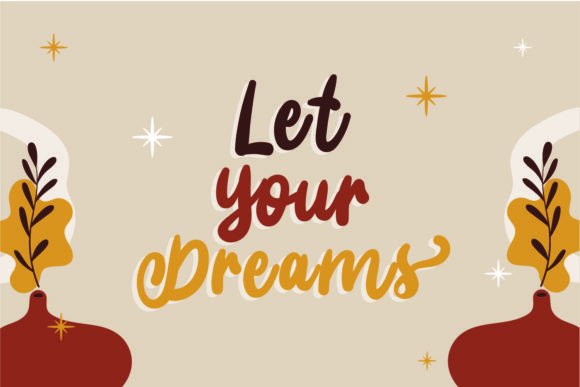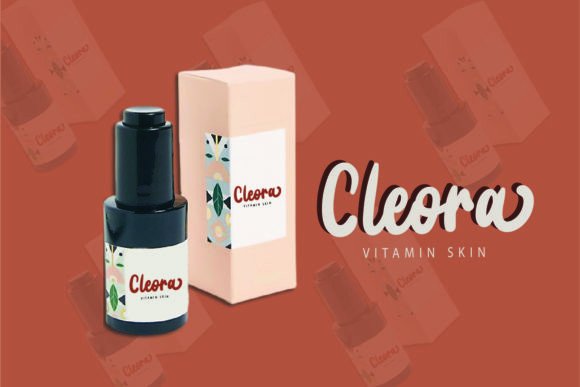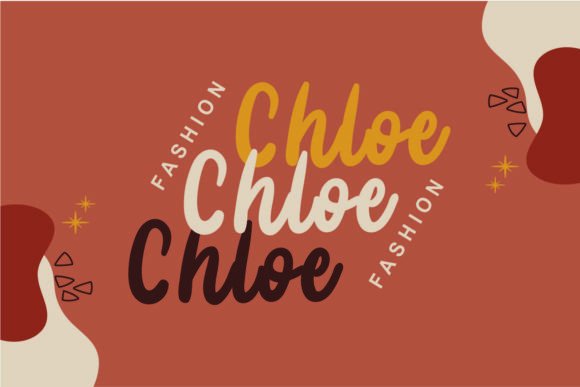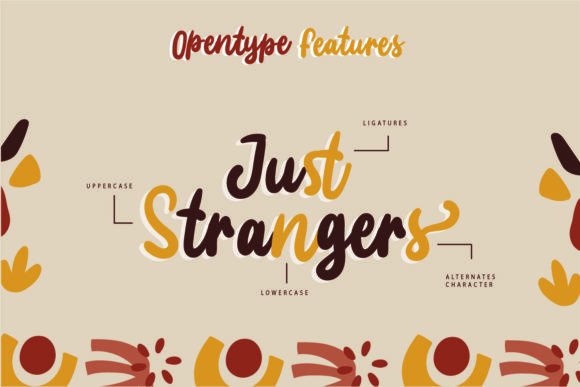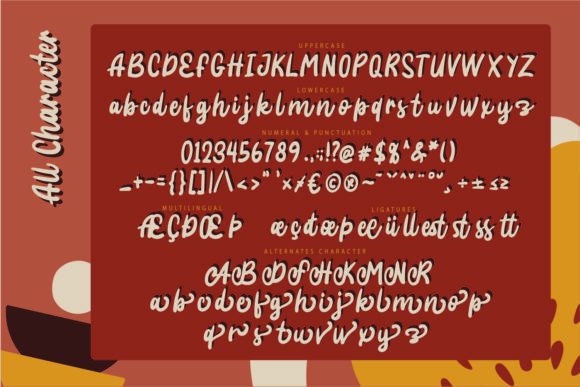
Avestonia Font: Elevate Your Designs with Elegant Calligraphy
In the world of typography, a font can make or break a design. For designers and crafters looking to add a touch of sophistication and elegance to their projects, Avestonia Font is an excellent choice. This modern script font boasts a beautiful calligraphy style, perfect for creating stunning invitations, greeting cards, branding materials, business cards, quotes, posters, and more.
What Makes Avestonia Font Special?
Avestonia Font stands out from the crowd with its unique blend of modernity and classic calligraphy. Its elegant strokes and flowing lines make it an ideal choice for designs that require a personal touch. Whether you’re working on a wedding invitation, a business card, or a promotional poster, Avestonia Font is sure to impress.
Key Features of Avestonia Font
- Modern Script Font: Avestonia Font features a modern script style with a calligraphy twist, making it perfect for designs that require a touch of elegance.
- PUA Encoded: This font is PUA (Private Use Area) encoded, which means you can easily access all the glyphs and swashes. This feature makes it simple to customize your designs and add a personal touch.
- Versatile: Avestonia Font is suitable for a wide range of design projects, including invitations, greeting cards, branding materials, business cards, quotes, posters, and more.
Use Cases for Avestonia Font
Avestonia Font is a versatile font that can be used in various design projects. Here are some use cases to get you started:
- Wedding Invitations: Create beautiful and elegant wedding invitations that set the tone for the big day.
- Greeting Cards: Design stunning greeting cards for special occasions, such as birthdays, anniversaries, and holidays.
- Branding Materials: Use Avestonia Font to create professional branding materials, such as logos, brochures, and letterheads.
- Business Cards: Make a lasting impression with elegant business cards that feature Avestonia Font.
- Posters: Create eye-catching posters that showcase your message in a stylish and sophisticated way.
Tips for Using Avestonia Font
To get the most out of Avestonia Font, here are some tips to keep in mind:
- Experiment with Swashes: Avestonia Font comes with a range of swashes that can add a touch of elegance to your designs. Experiment with different swashes to find the one that works best for your project.
- Pair with Other Fonts: Avestonia Font pairs well with other fonts, such as sans-serif fonts. Experiment with different font combinations to create a unique look.
- Use in High-Quality Designs: Avestonia Font is designed for high-quality designs. Use it in projects that require a high level of detail and sophistication.
Avestonia Font is a beautiful modern script font with a calligraphy style that’s perfect for designers and crafters looking to add a touch of elegance to their projects. With its PUA encoding, versatile design, and range of use cases, Avestonia Font is an excellent choice for anyone looking to elevate their designs. Whether you’re working on a wedding invitation, a business card, or a promotional poster, Avestonia Font is sure to impress.